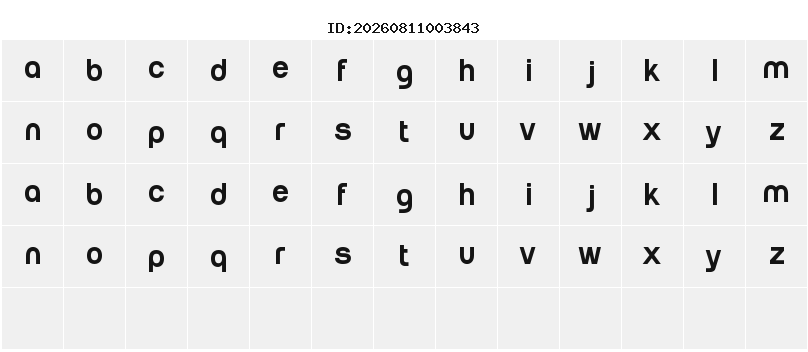
• Font Name: Run
• Font ID: 1.000;pyrs;Run-Medium
• Full Font Name: Run Medium
• PostScript Name: Run-Medium
• Character Count: 73
• Designer: Jan Christoph Kutta
• Manufacturer: Jan Christoph Kutta
About Run.ttf
Run.ttf is a modern, elegant sans-serif font designed for ultimate readability and visual harmony. Perfect for branding, headlines, web design, and print materials.